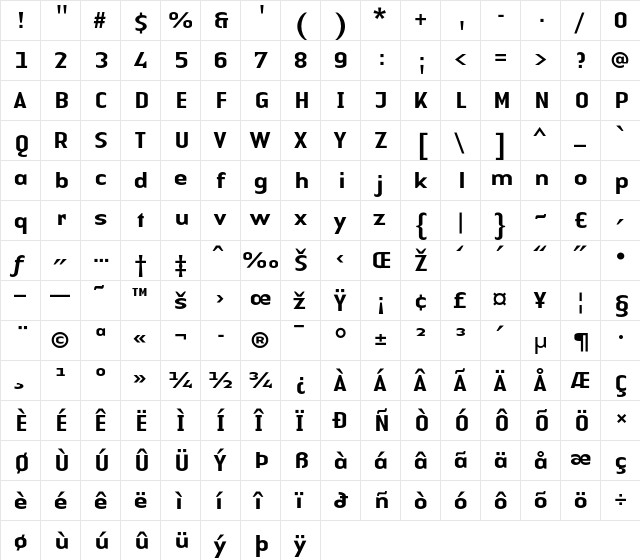
LTAuthenticSans Medium Regular Font Preview
LTAuthenticSans Medium Regular
LTAuthenticSans Medium Regular Font Details
Design Context for LTAuthenticSans Medium Typeface
LTAuthenticSans Medium offers clean, dependable letterforms without strong stylistic allegiance, making it a practical choice for designers who need flexibility.
Pro Tip: Pair LTAuthenticSans Medium with a font of contrasting weight or personality to build a more expressive typographic hierarchy.